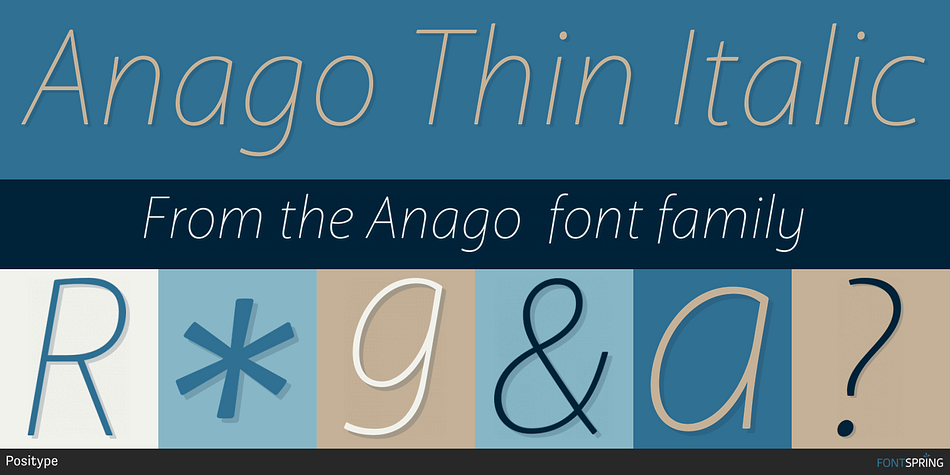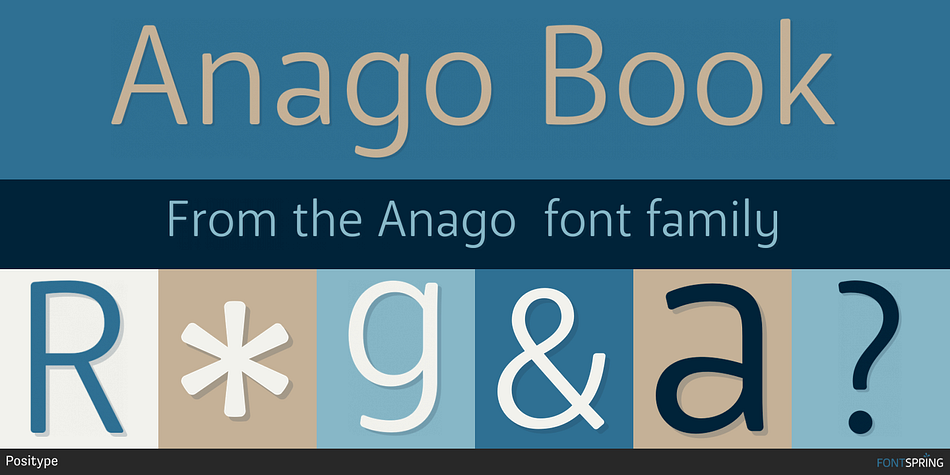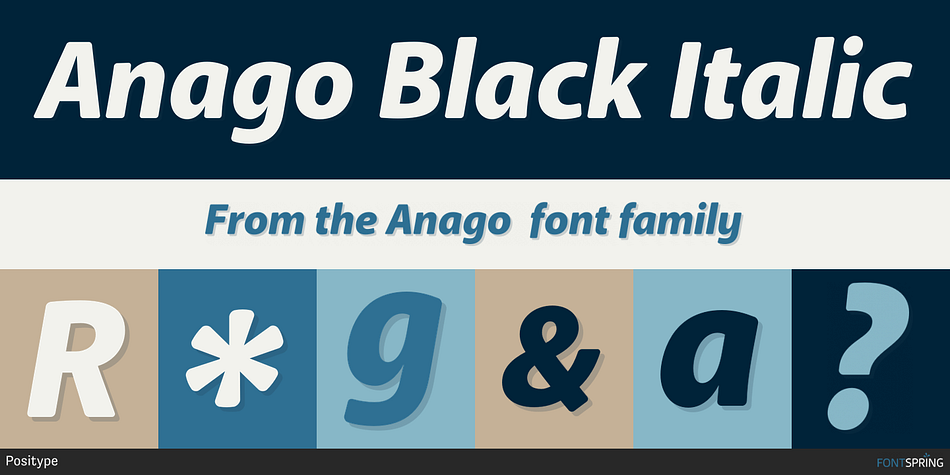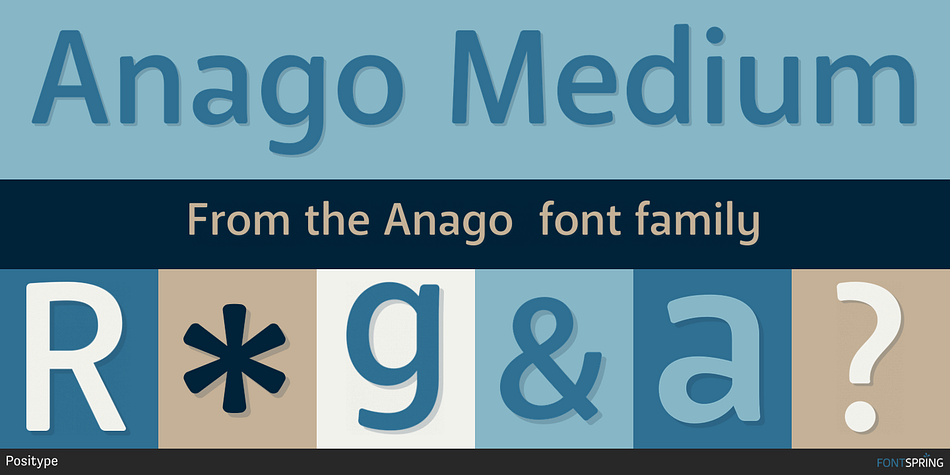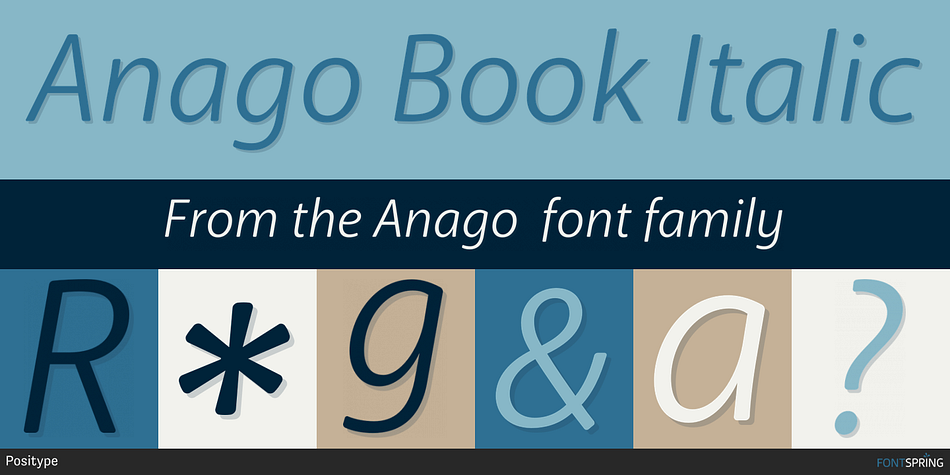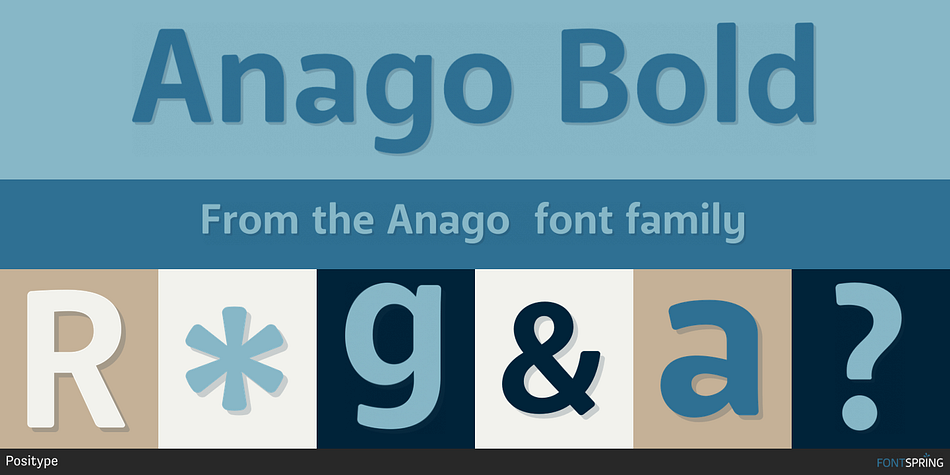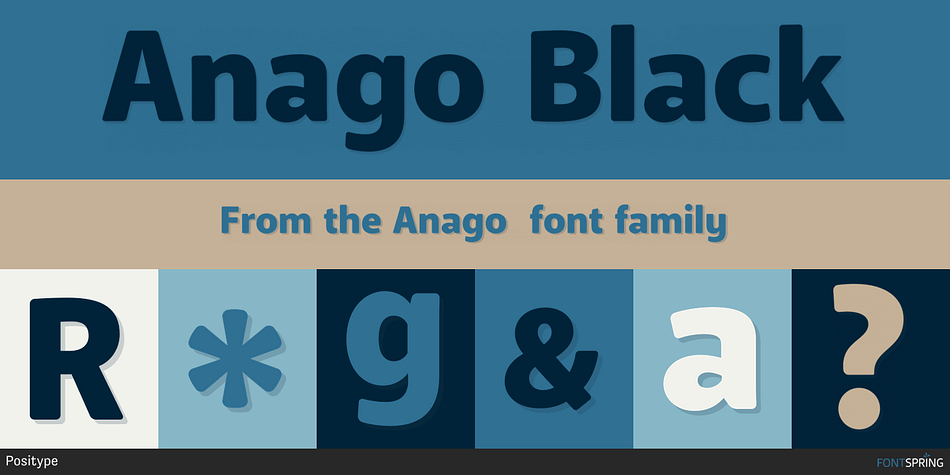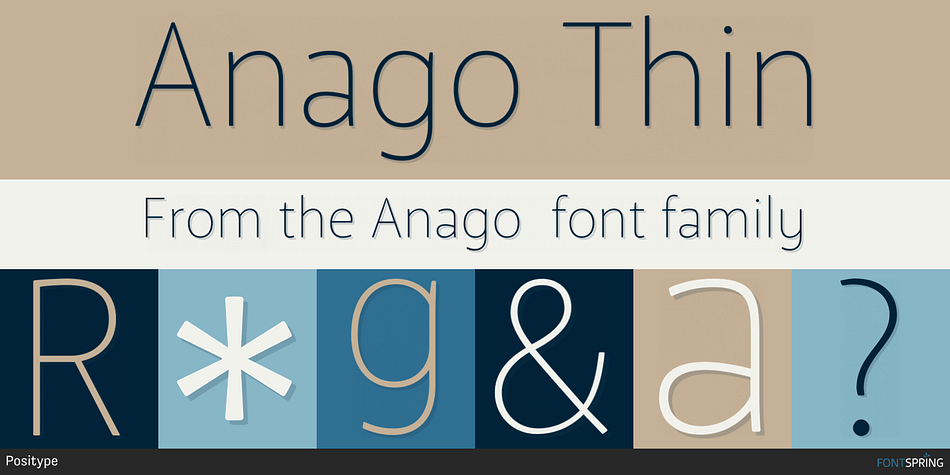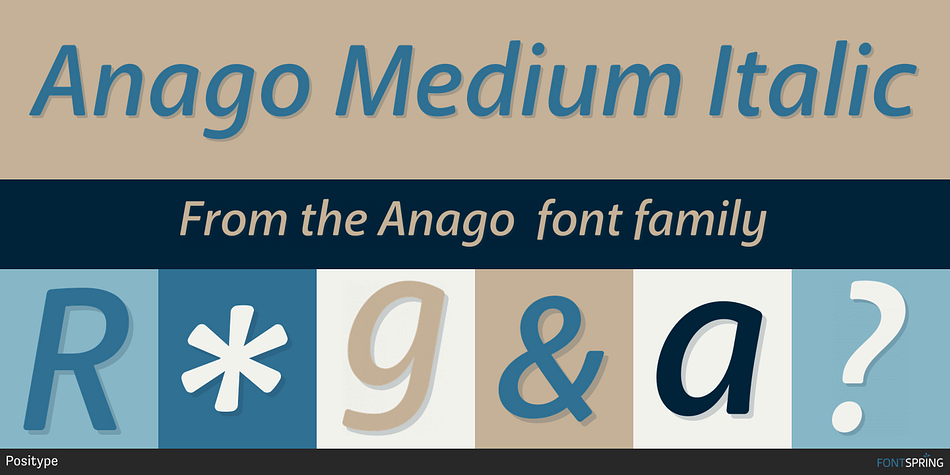
Designed by Neil Summerour, Anago is a sans serif font family. This typeface has ten styles and was published by Positype.
Anago shares the same DNA as its sibling Macha, but is a completely different species than the former or any of my other sans serifs (Aaux Next, Air, Akagi Pro or Wasabi). Soft, ample letterforms are casually constructed and the end result produces a typeface that changes color as it varies in size — allowing the type family to work well in both text and display settings as long as attention is given to size.
Anago takes a little but gives a lot. The 10-style typeface features a fully-loaded character set that includes: Small Caps, Proportional Lining and Oldstyle Numerals, Tabular Lining and Oldstyle Numerals, Fractions, Ordinals, Inferiors, Superiors, Stylistic Alternates, Ligatures, Case-sensitive, and more.